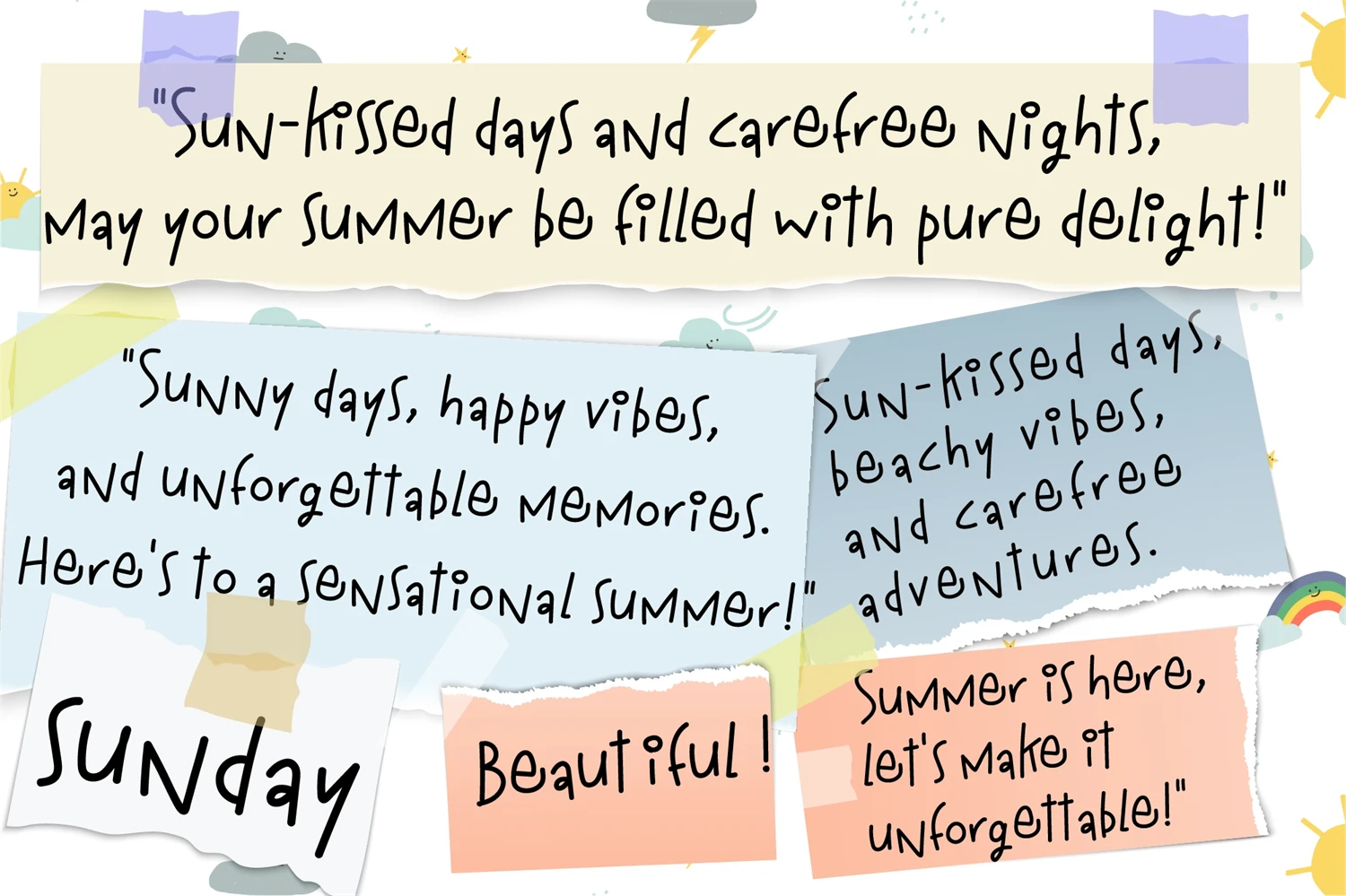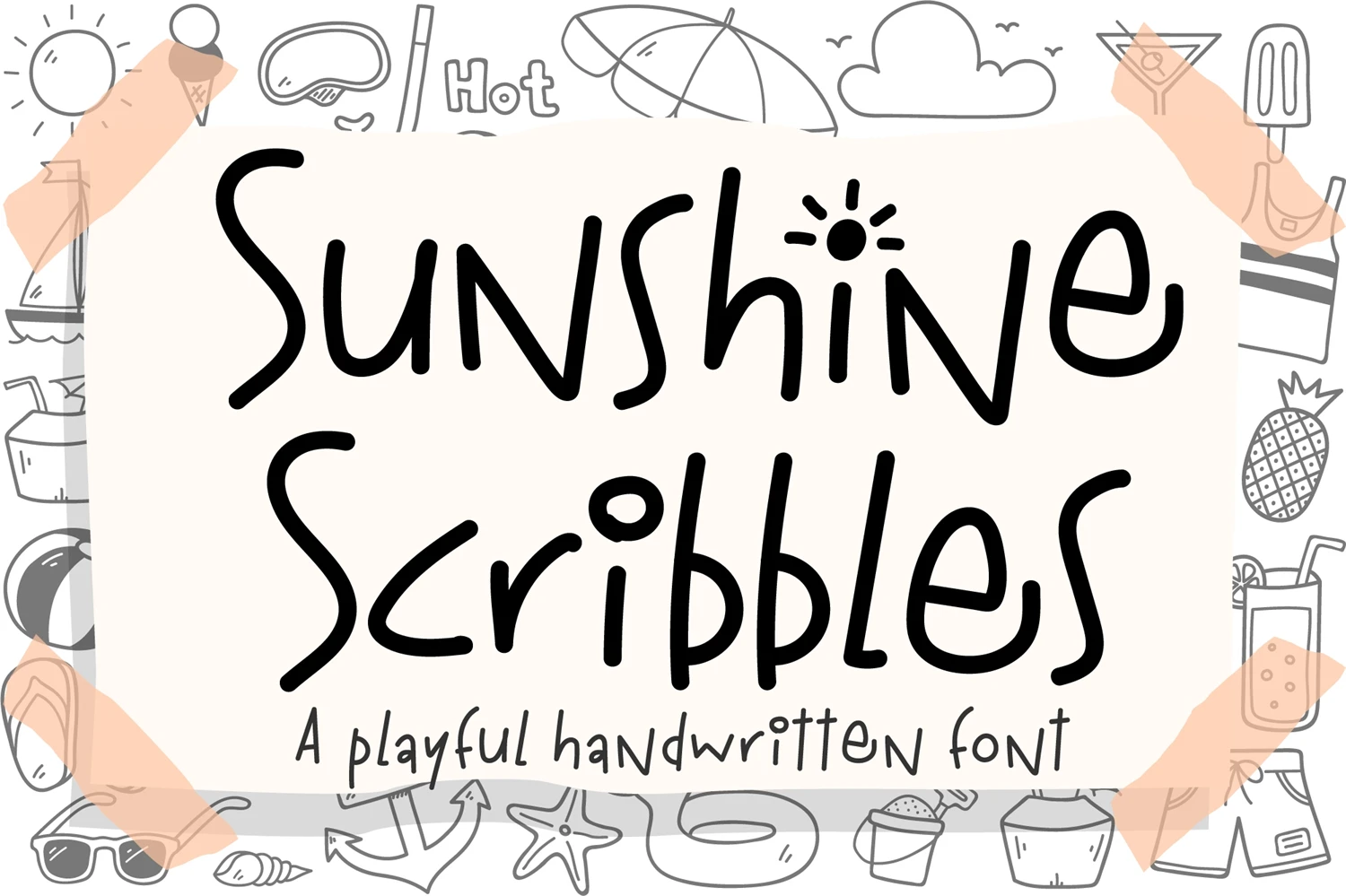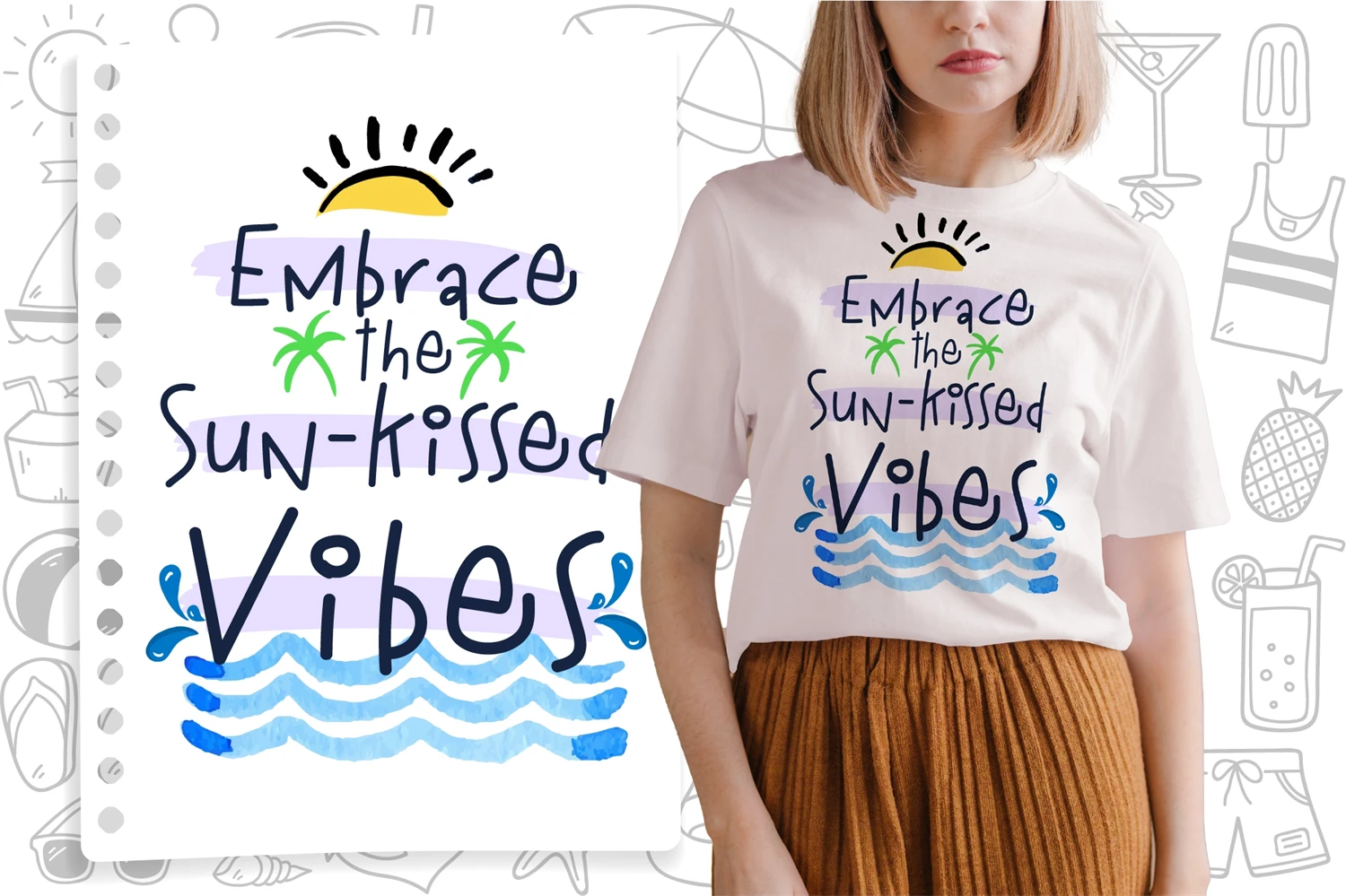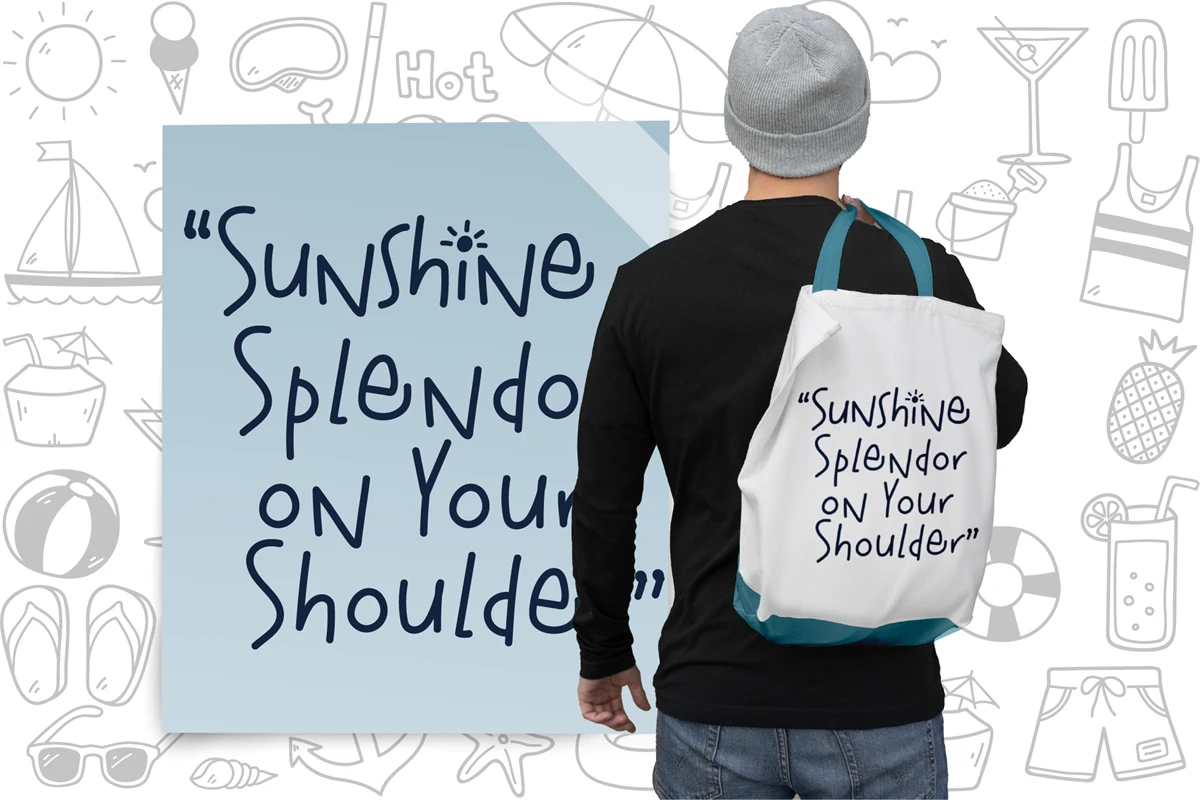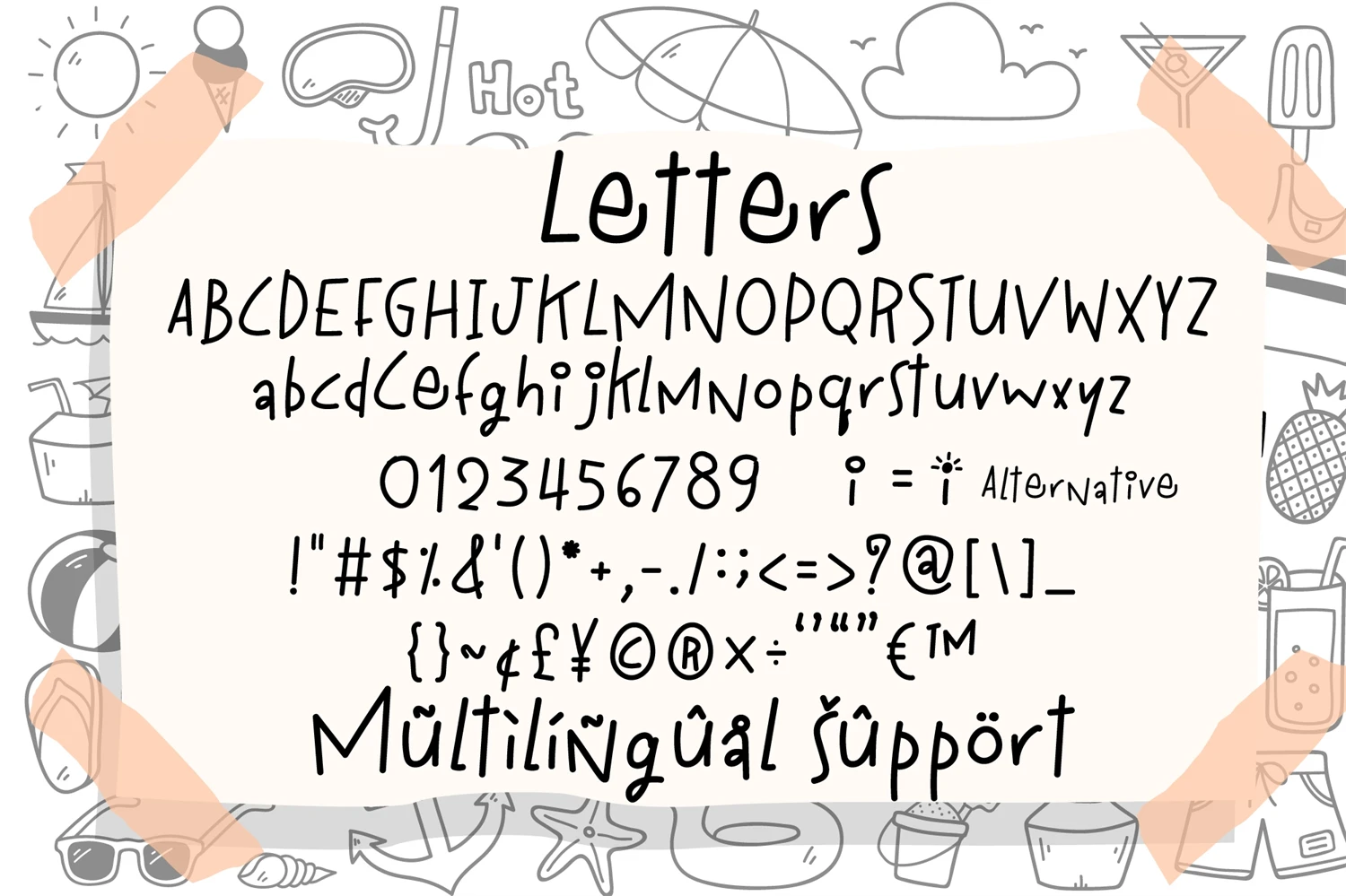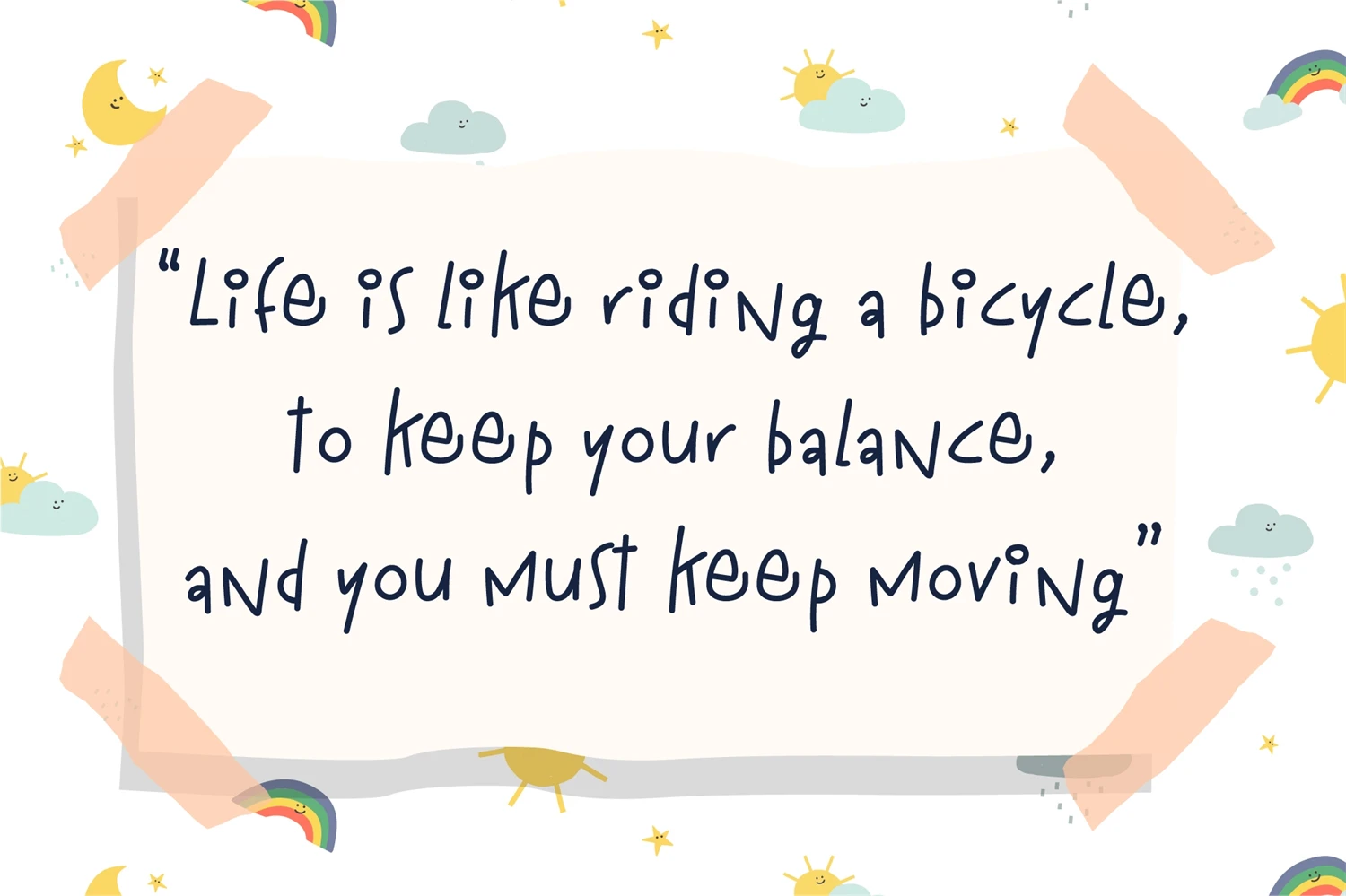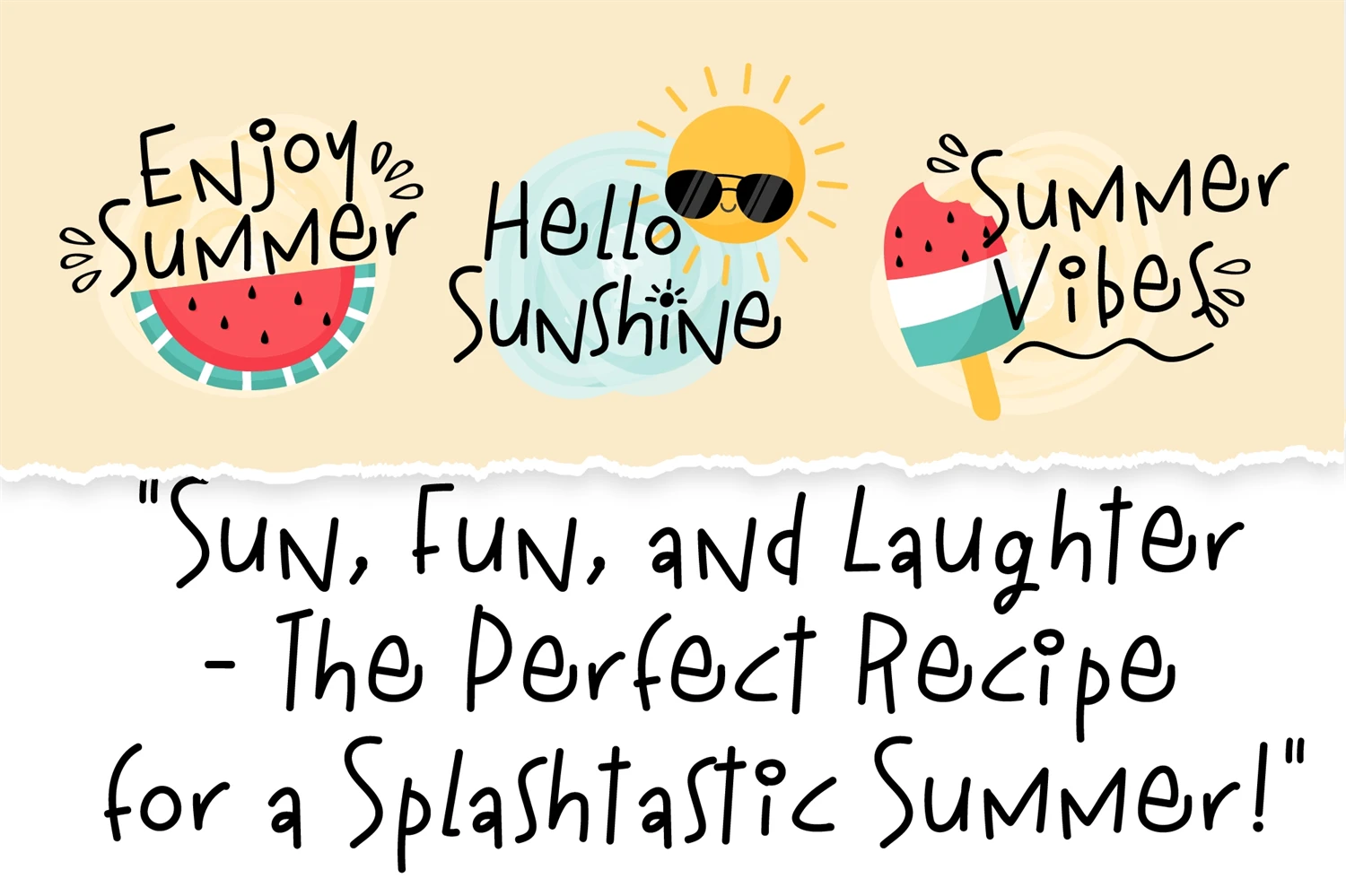
Introducing Sunshine Scribbles Font, a delightful blend of minimalism and playfulness. This charming handwritten font captures the carefree spirit of doodles and adds a touch of sunshine to your designs. With its clean lines and simple elegance, it brings a sense of joy and whimsy to any project. Perfect for logos, branding, invitations, and more.
Sunshine Scribbles Font